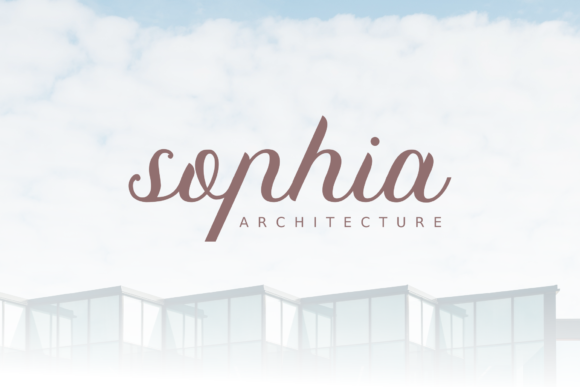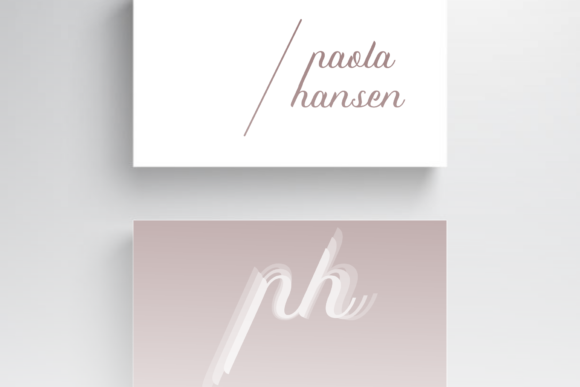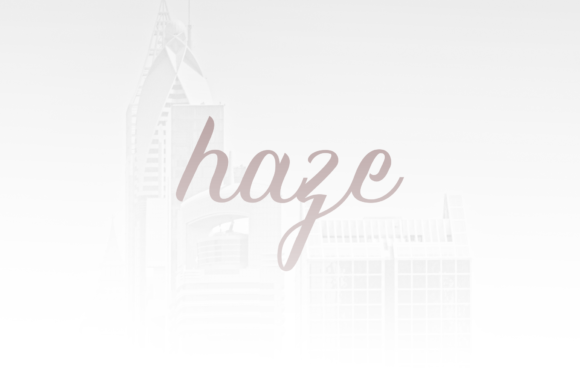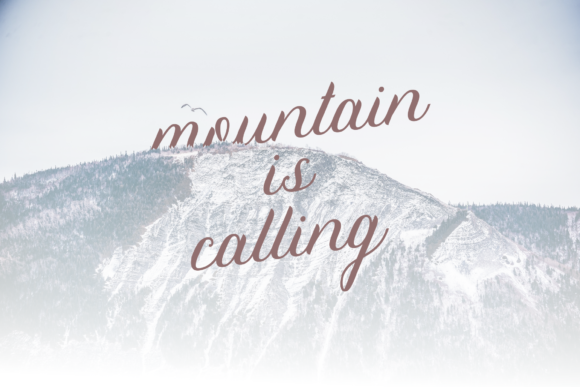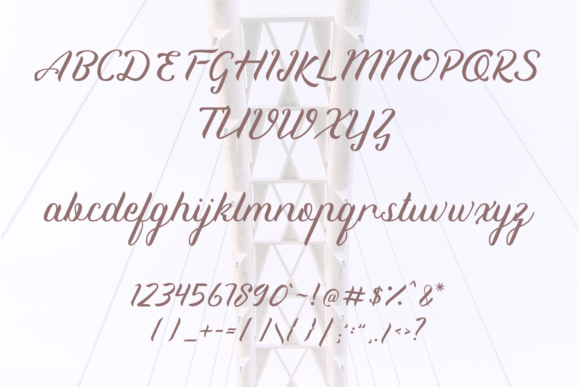
HomeScript FontsPremside Font Script Fonts Premside Font FacebookXPinterestWhatsApp Premside Font Poster 2 Premside Font Poster 3 Premside Font Poster 4 Premside Font Poster 5 Premside Font Poster 6 About Premside Font Premside is a modern and charming script that will effortlessly turn any design idea into a true standout! DOWNLOAD NOW People also explored Sublimation Font Little Quil Font Handmade Font Back Later Font Suprati Danita Font Starlight Font Latifah McKinley Australiya 376 0 TagsPremside Font Previous articleMalvinas Duo FontNext articleFreaks Font LEAVE A REPLY Cancel reply Comment: Please enter your comment! Name:* Please enter your name here Email:* You have entered an incorrect email address! Please enter your email address here Website: Save my name, email, and website in this browser for the next time I comment. Personal Use Free Propaganda Personal Use Free Read more about this font Kellana Personal Use Free Read more about this font Harshita Personal Use Free Read more about this font Hello Holiday Personal Use Free Read more about this font BLOG Best Fonts for T-Shirt Design – Top 2025 Picks In 2025, t-shirt design has become more than just fashion—it's a form of self-expression. Whether you're... Free vs Paid Fonts: Why Investing in Premium Fonts Is Worth It Best Fonts for YouTube Videos: Make Your Thumbnails Stand Out Modern Sans-Serif Fonts That Brands Love in 2025